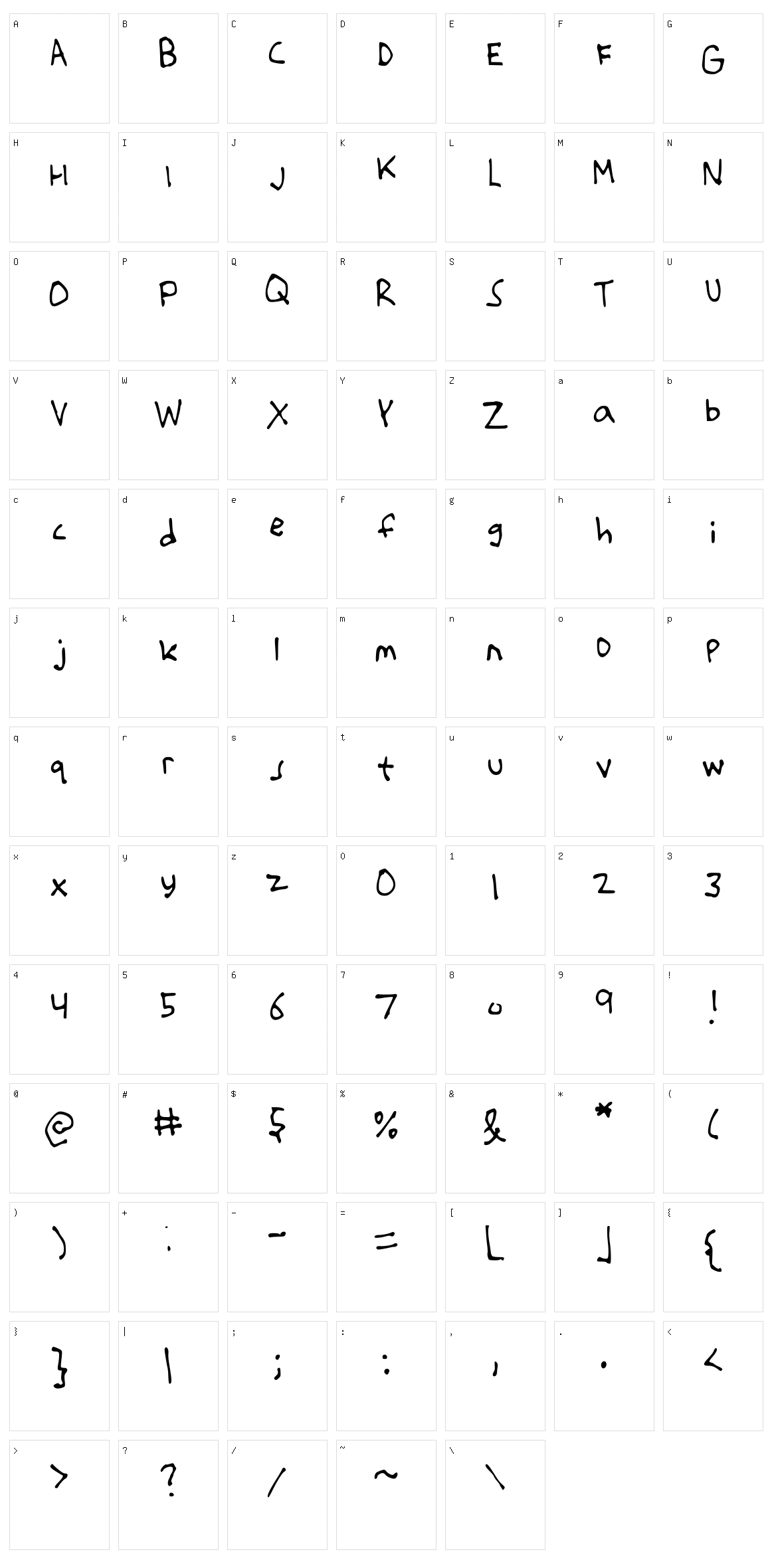
The free font That There Paul is carefully designed by thattherepaul, showcasing a thoughtful balance of creativity and usability and falls under the Script font style. When you download the ZIP file, it contains only 17.88 KB of font files, making it lightweight and quick to download. Please review the license details below to understand permitted usage and distribution rights. If license information is not available, we recommend using this font for personal projects only or contacting the author directly for commercial usage permissions.